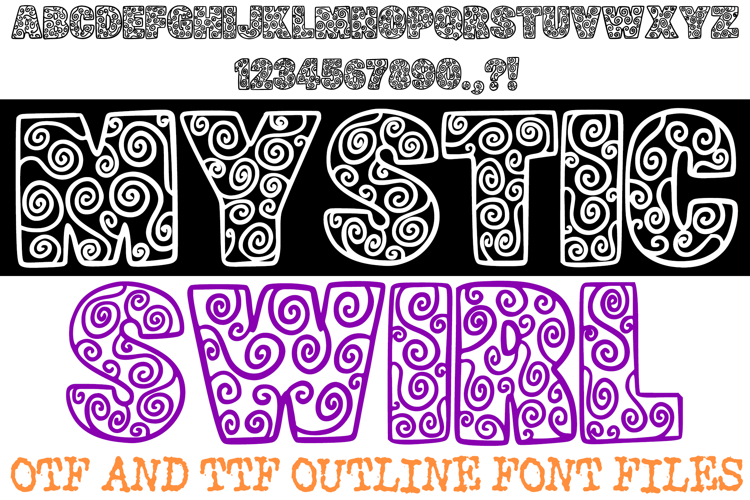
Mystic Swirl Outline Lettering ABC Block Font Typeface OTF
Unlock a realm of enchantment and intricate beauty with Mystic Swirl Outline Font! This captivating typeface seamlessly blends bold, assertive block letterforms with mesmerizing, elaborate swirling patterns, creating a truly unique and elegant display. It's more than just a font; it's a visual spell, designed to infuse your creative projects with a sense of wonder, sophistication, and a touch of the mystical.
Each character in Mystic Swirl Block Font features a solid, commanding structure whose interior is filled with graceful, coiling flourishes. This intricate detail creates a rich texture that draws the eye, making your text feel both powerful and artistically refined. Ideal for crafting luxurious branding, magical event invitations, fantasy book covers, ornate packaging, boutique signage, and eye-catching headlines, this font ensures your message is conveyed with an aura of elegance and intrigue.
Whether you're aiming for a sophisticated, Celtic-inspired aesthetic, a whimsical fantasy vibe, a luxurious high-end look, or simply a uniquely decorative flair, this font delivers with unparalleled style. Its strong presence maintains readability, while the intricate swirls add an artistic depth that stands out from conventional designs.
If you're looking to infuse your designs with mystery, charm, and undeniable artistic elegance, Mystic Swirl Block Font is your ultimate tool. Cast a spell of creativity!